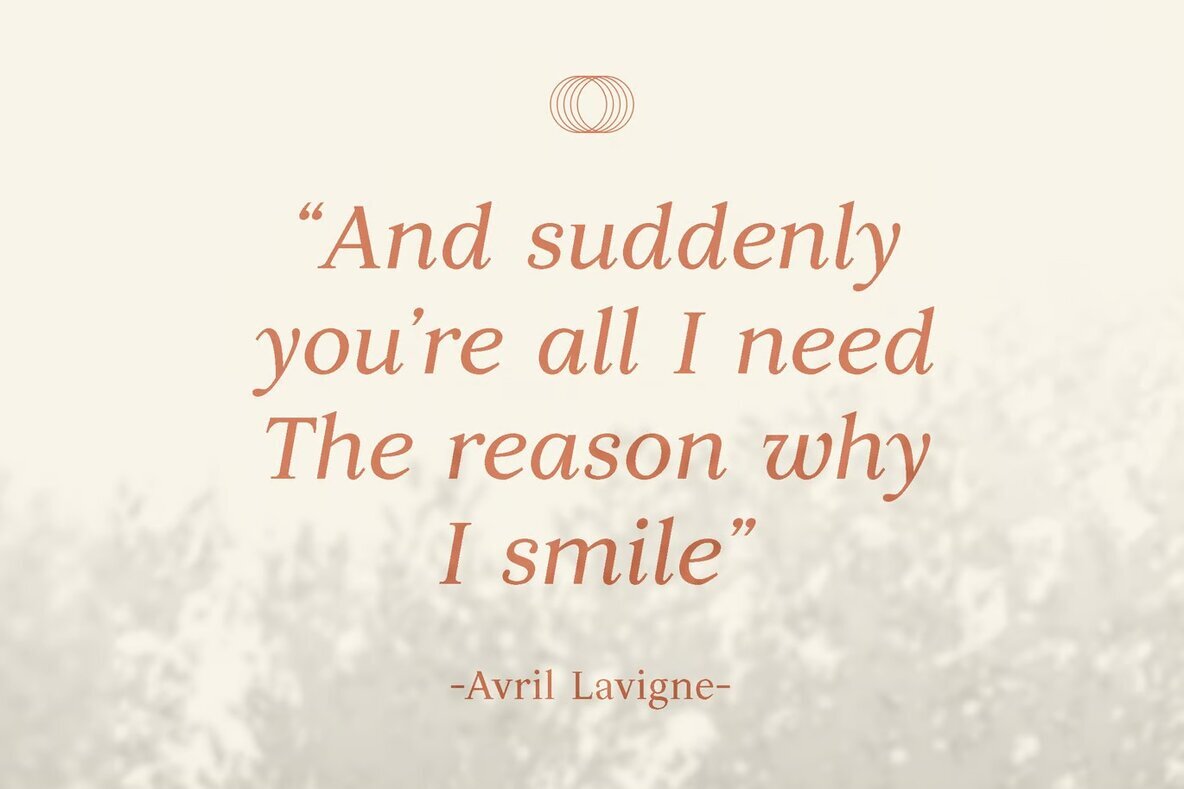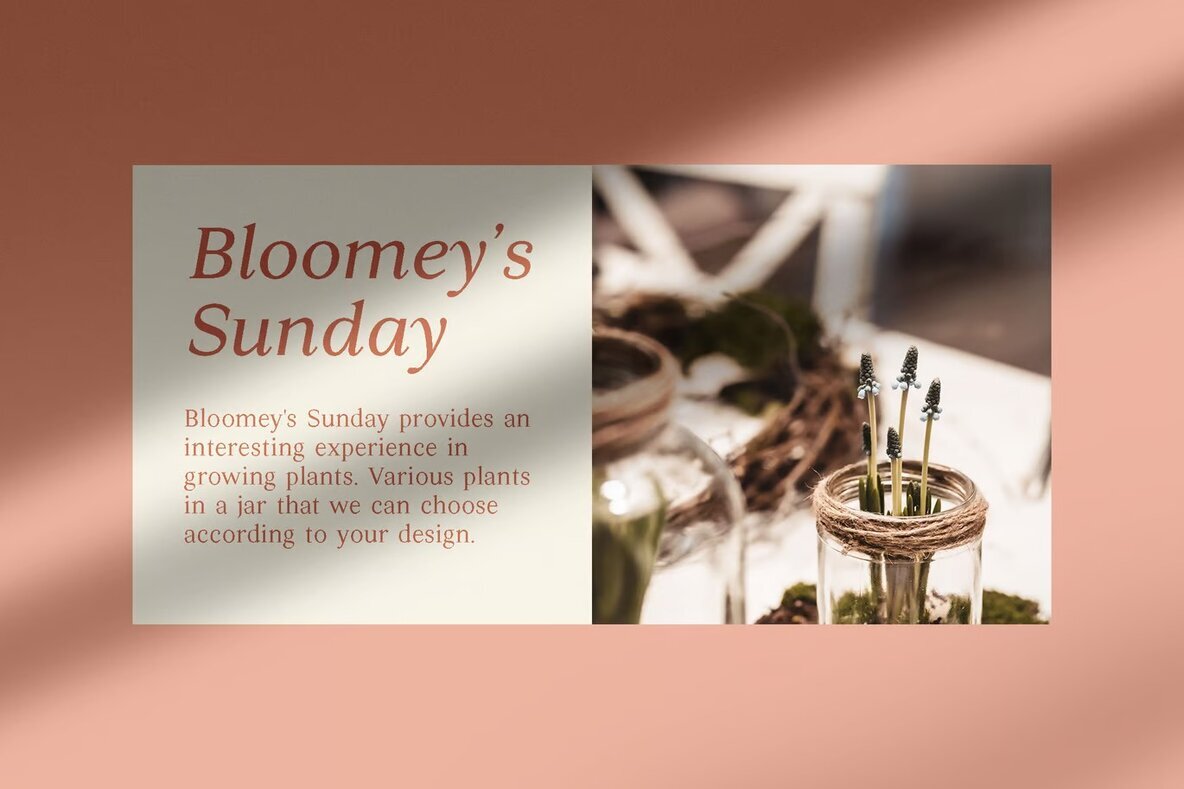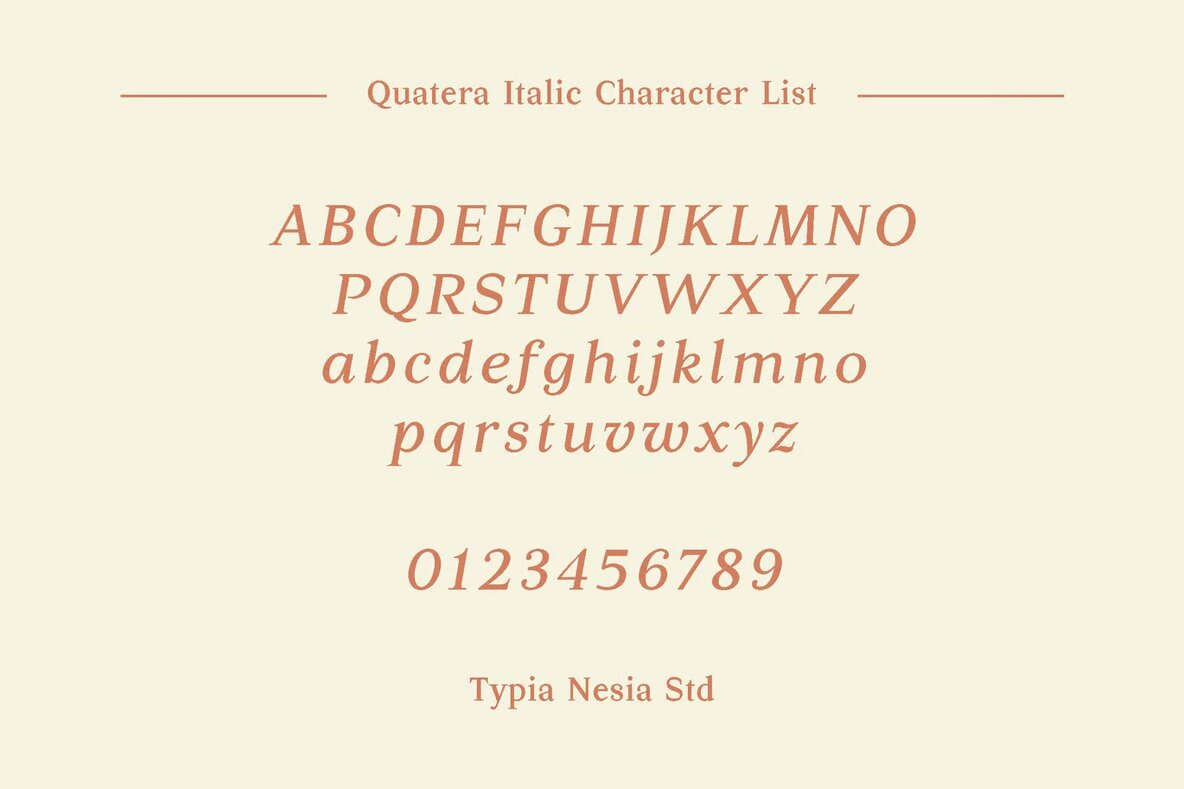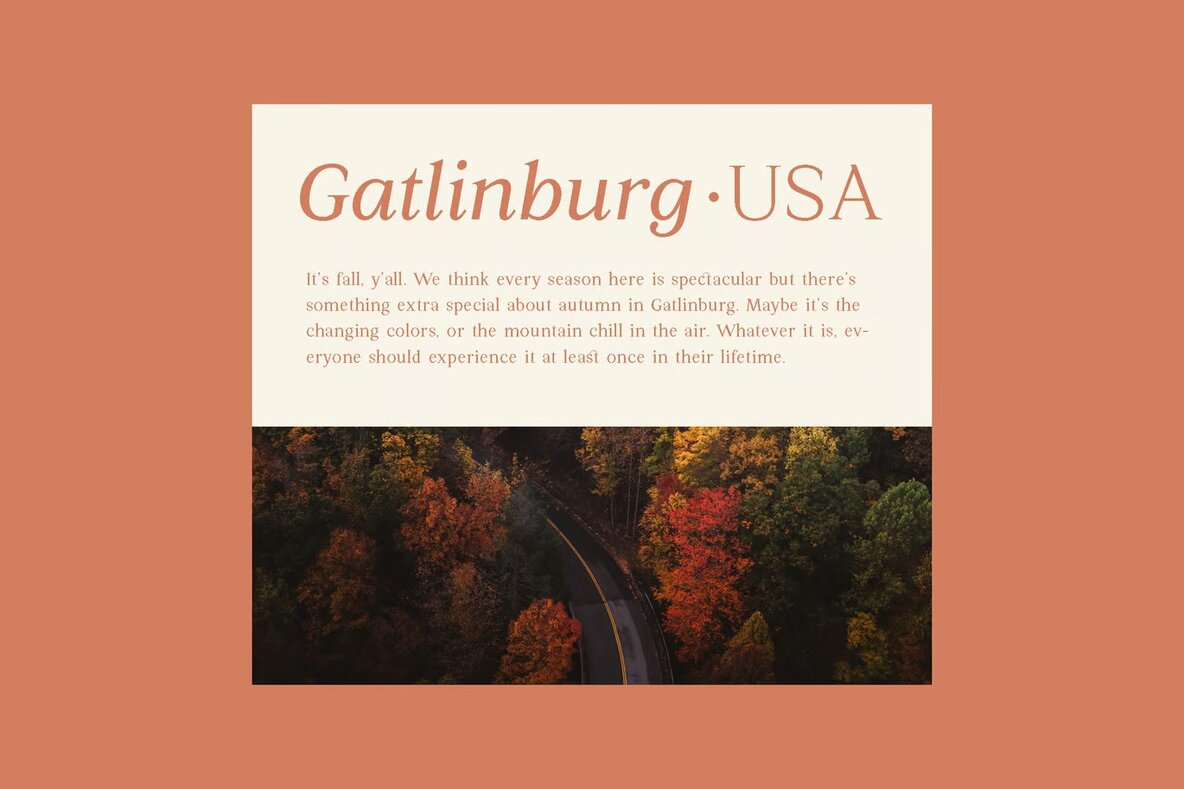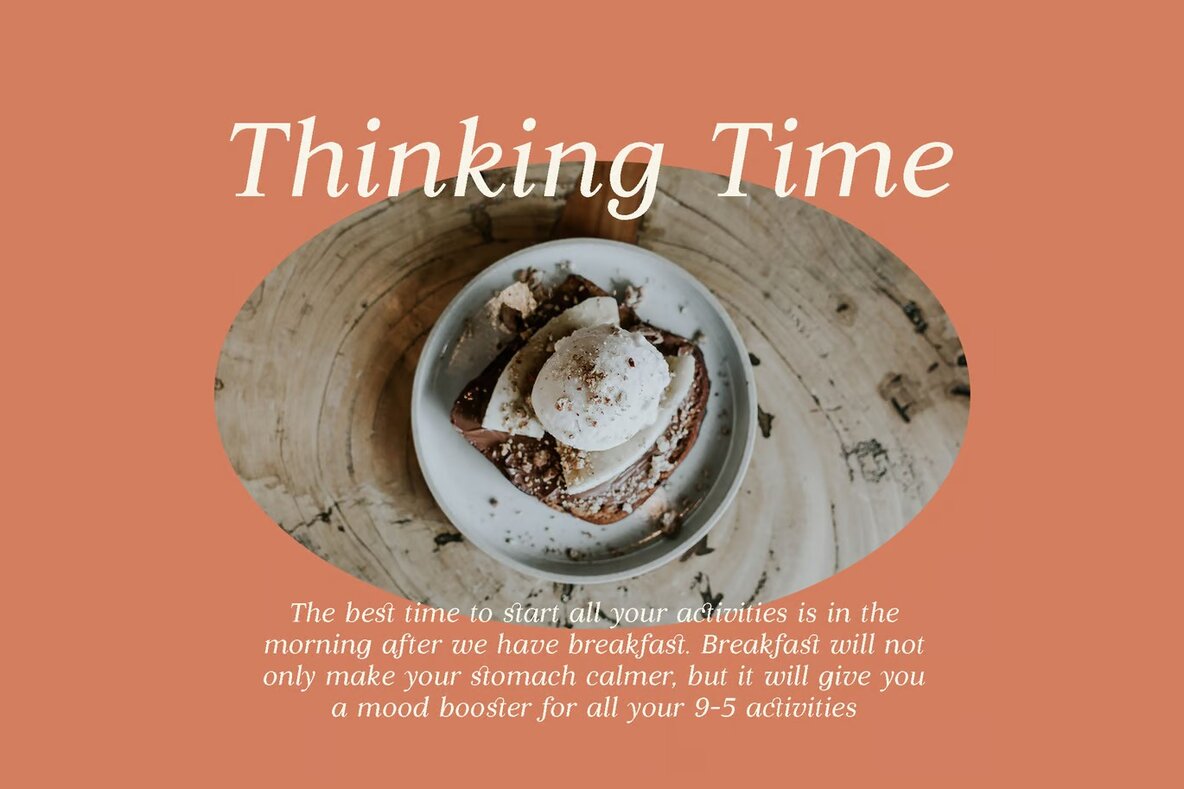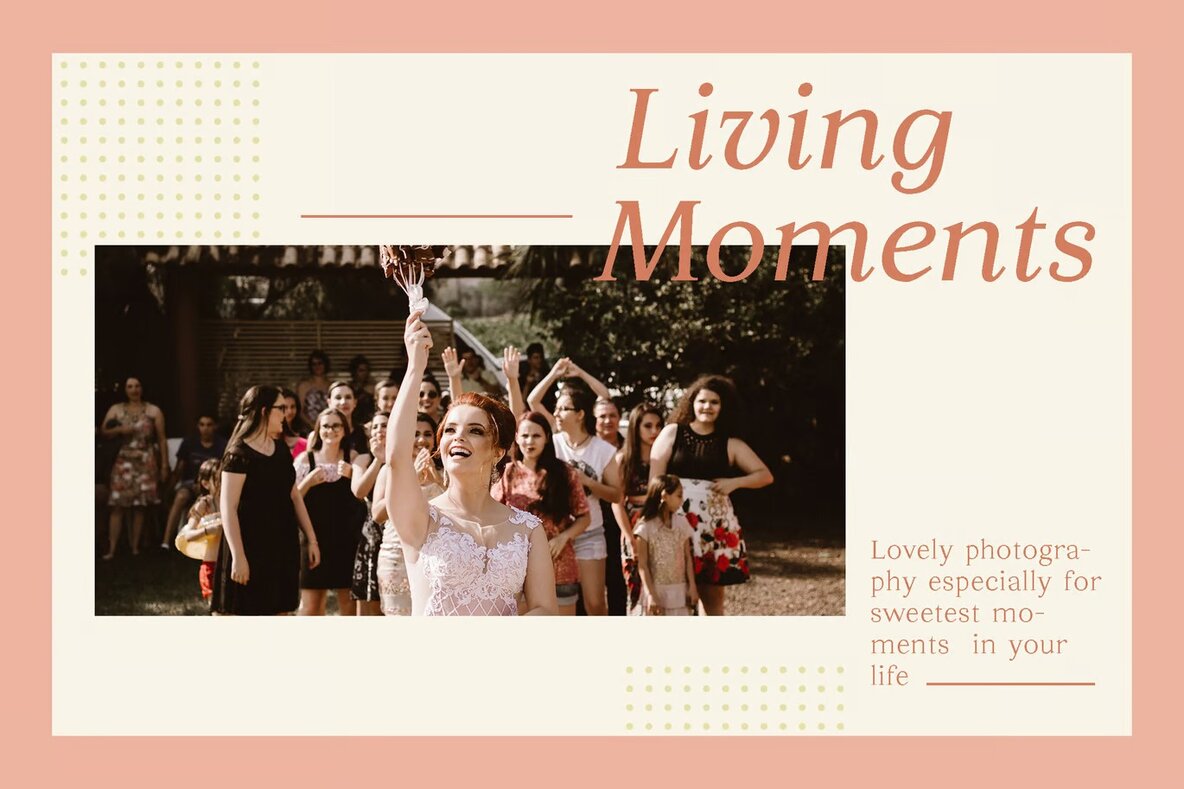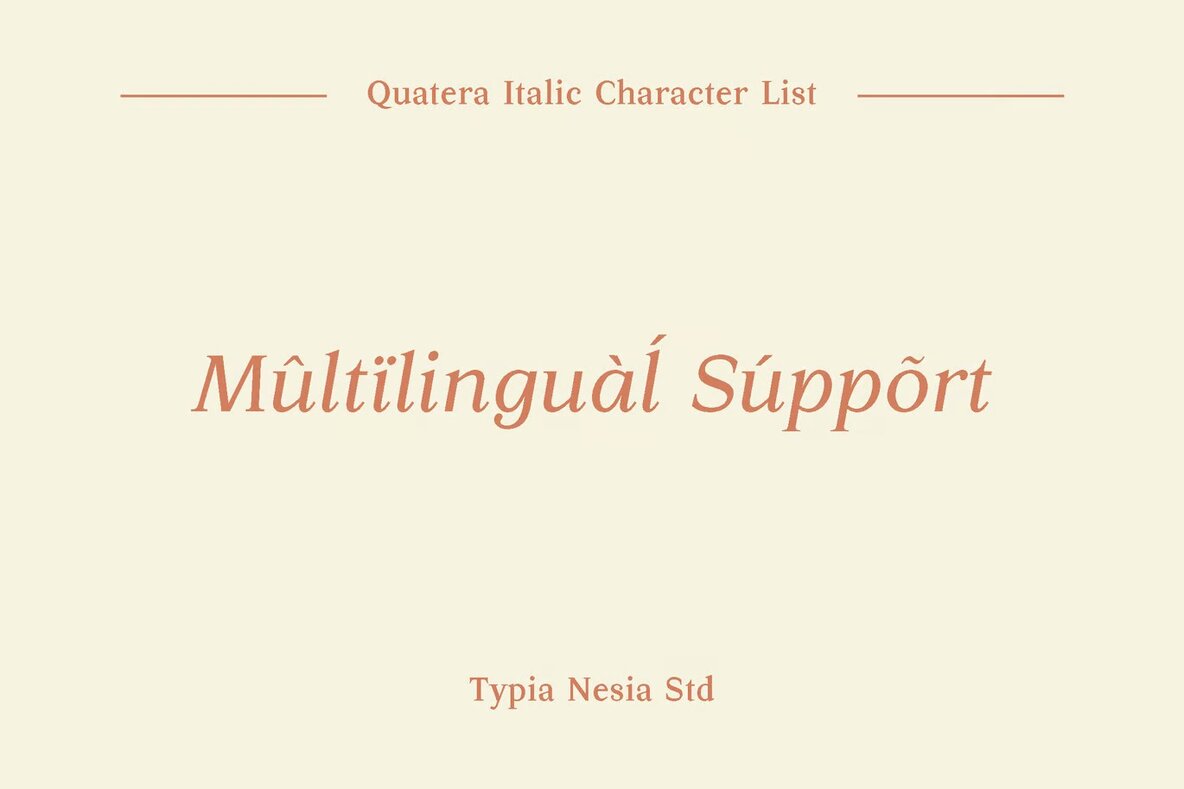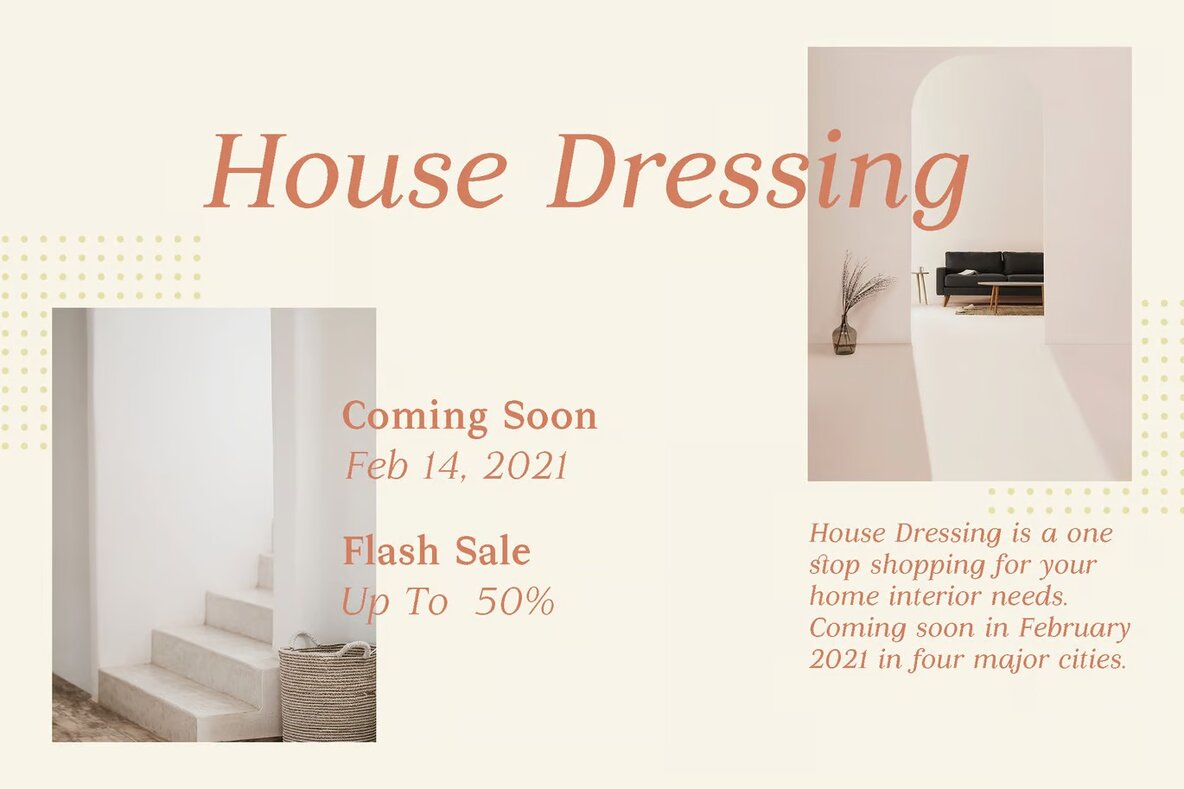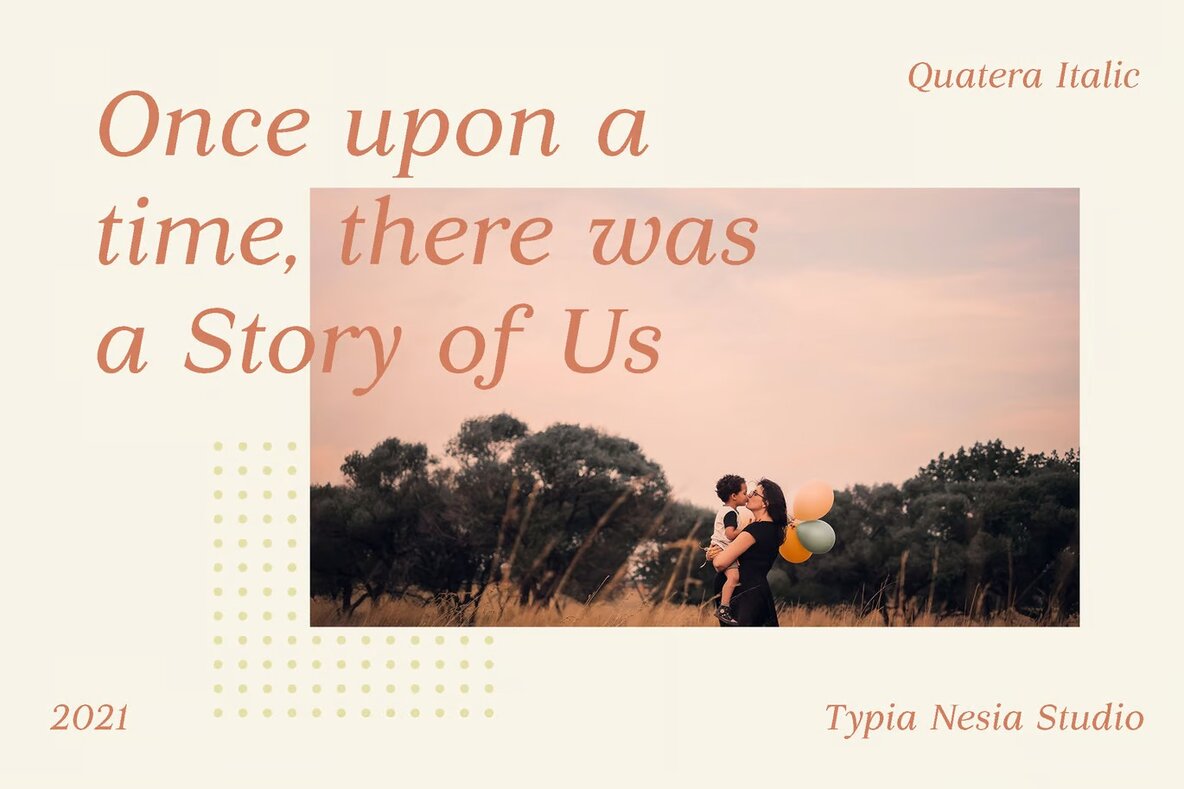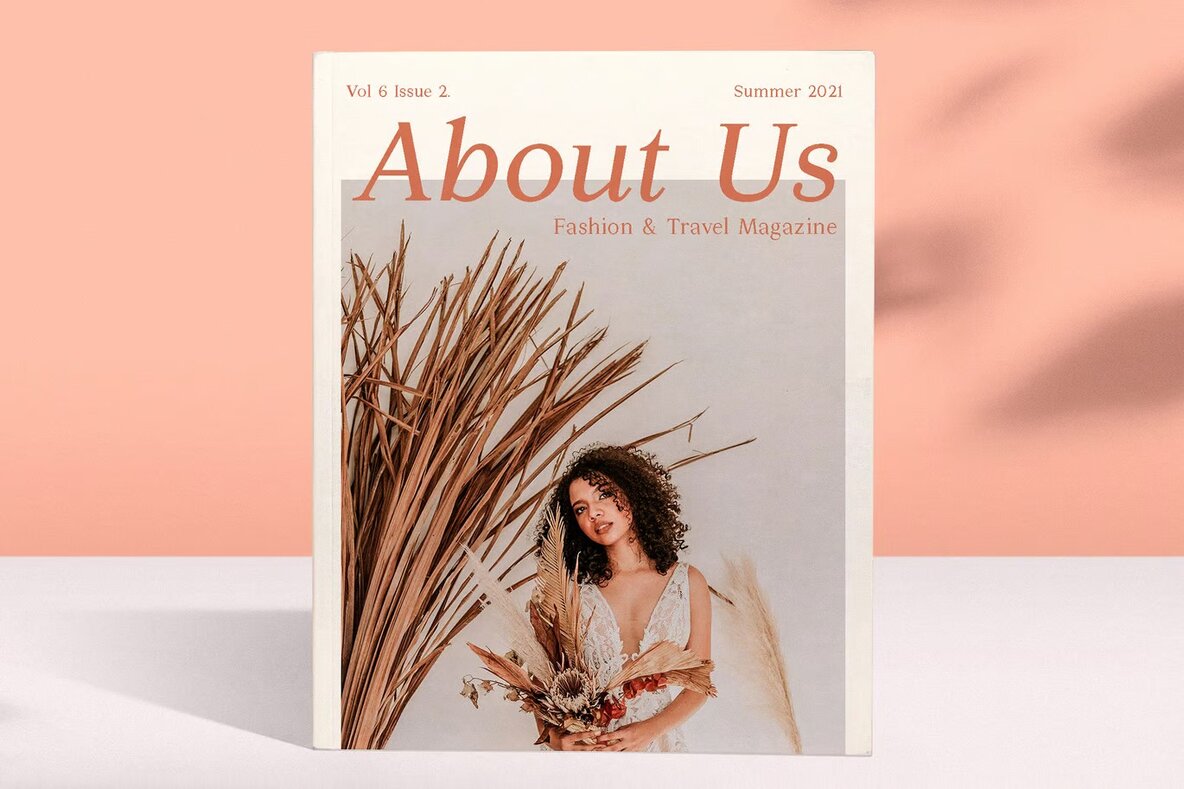
Quatera Italic Font
Quatera Italic
Quatera Italic stands out as a modern and elegant serif italic font, embodying the timeless aspect of classic Roman typefaces combined with the luxury of Garalde serif styling. It is an ideal choice for projects where sophistication is key, offering a refined aesthetic suitable for creating luxury logos, upscale branding, and classy editorial designs. The font's gentle curves and sleek form make it perfect for woman-centric magazines, cosmetic brands, and fashion promotions that seek to convey a sense of elegance.
In addition to its aesthetic appeal, Quatera Italic presents versatility, making it useful for branding in art galleries and museums, as well as enhancing the look of boutique stations, blog designs, and modern advertising campaigns. It's an excellent choice for crafting impactful card invitations, artistic quotes, home decor elements, and book covers. The font contributes to a sense of exclusivity and historical prestige, making it suitable for special event materials and any creative endeavor where classy sophistication is paramount.